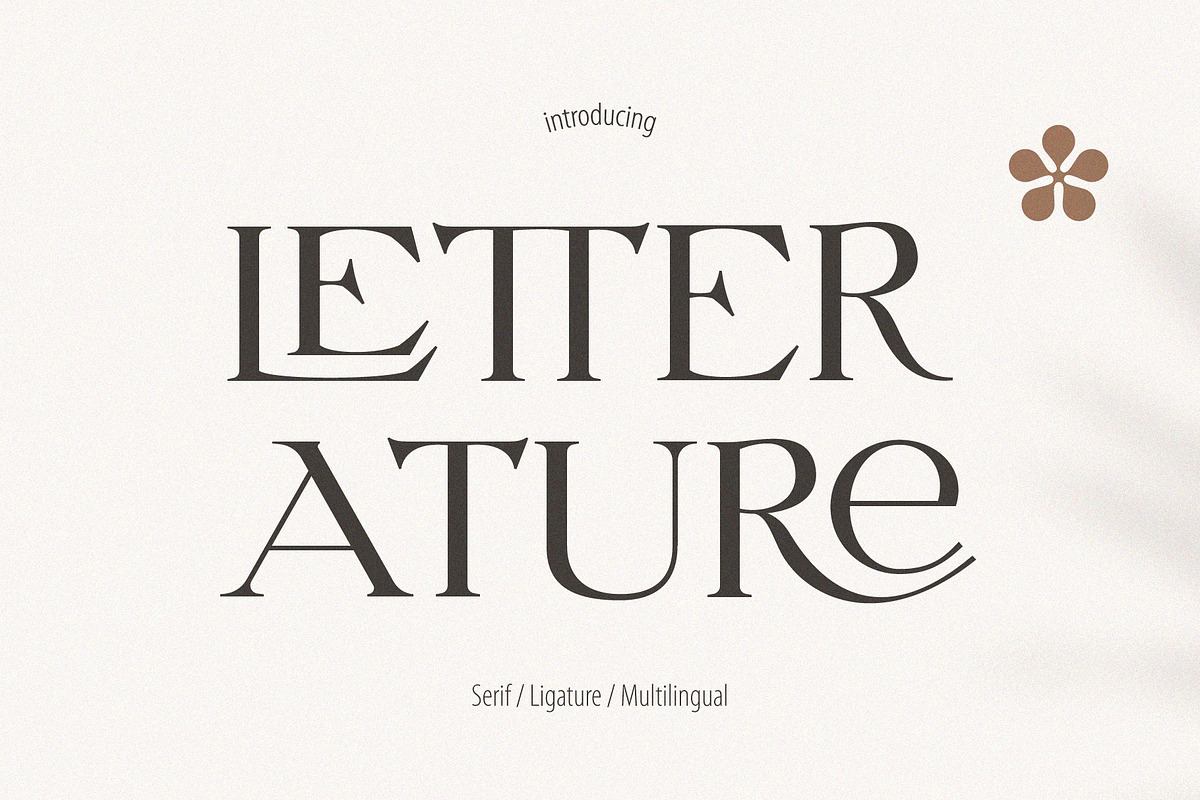
Letterature ligature serif font Free Download
Letterature Ligature Serif Font Free Download
Letterature Ligature Serif Font Free Download is a beautifully crafted serif typeface that combines traditional letterforms with elegant ligatures, providing a unique and sophisticated touch. With its high contrast and stylish flourishes, this font is perfect for editorial layouts, branding, invitations, logos, and any project that demands an elegant and refined aesthetic.
The ligatures within Letterature add a level of artistry and fluidity to the design, creating a more personalized, hand-crafted feel. Whether you’re designing for luxury brands, high-end fashion, or premium products, this font adds a touch of class and beauty to your work.